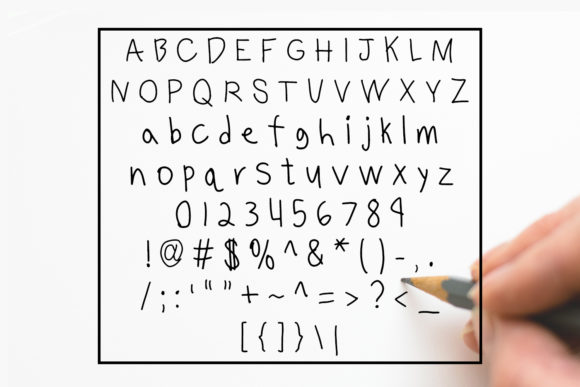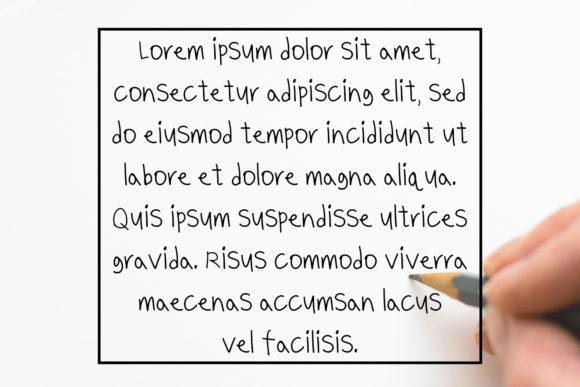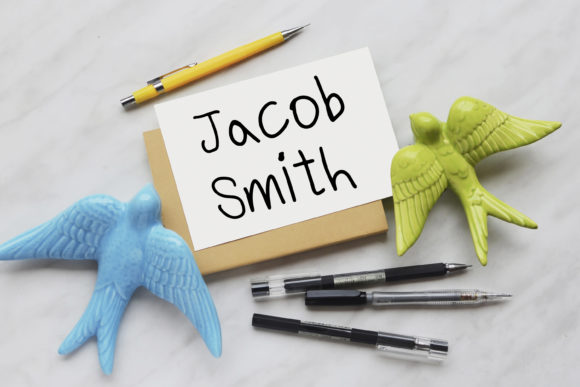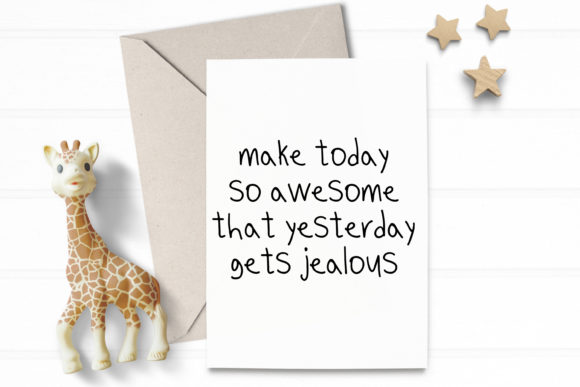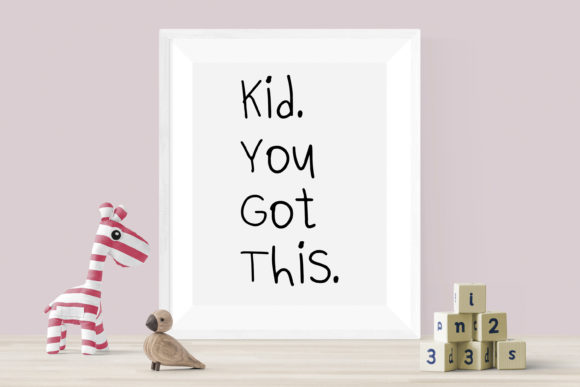
Meet the Next Big Thing in Kid-Friendly Fonts
Do you remember the thrill of scribbling out your first story or drawing a picture for your parents? For many of us, the act of creating is a magical experience that brings us joy and fulfillment. For a 12-year-old boy named Ben, this moment sparked a passion for design that would eventually lead to the creation of the Benjammin’ Font.
The Benjammin’ Font is a charming, handwritten sans-serif font designed specifically for kids. Its playful, carefree style makes it perfect for kids’ projects, from school assignments to creative writing. As a font created by a kid for kids, the Benjammin’ Font offers a unique perspective that’s both authentic and relatable. For designers, it’s a valuable resource that can add a touch of whimsy and personality to any project.
Benjammin’ Font Key Features
- Font Family: Benjammin’ Font is a sans-serif typeface.
- Unique Characteristics: The font features a modern, friendly design with a subtle flair at the ends of strokes, giving it a distinctive feel.
Benjammin’ Font Review
Overall, I’d say Benjammin’ Font is a solid choice for anyone looking for a casual, playful font. Here are the things that stood out to me:
- ✨ The font’s unique charm and character – it’s got a quirky, laid-back vibe that’s perfect for creative projects or branding that wants to stand out.
- ✨ The font’s legibility – despite its playful nature, Benjammin’ Font is still easy to read, even at smaller font sizes.
- ✨ The font’s compatibility – it works well across a range of devices and operating systems, which is a must-have for any modern font.
However, there are a few limitations that I’d like to mention:
- ⚠️ The font’s kerning could be improved – sometimes the letters look a bit too loose or tight, which can affect the overall look of your design.
- ⚠️ The font’s character set is limited – it’s mainly designed for Latin scripts, which may not be suitable for projects that require a wider range of languages.
Overall, I’d give Benjammin’ Font 4 out of 5 stars. It’s a great choice for casual projects, but it may not be the best fit for more formal or complex designs. Still, it’s a fun and versatile font that’s worth considering for your next project.
Getting the Most Out of “Benjammin’ Font”
For optimal results, use “Benjammin’ Font” in conjunction with bold or italic text to create visual interest.
Experiment with different font sizes and colors to create a unique and eye-catching design.
“Benjammin’ Font” is ideal for:
- Music-related designs (e.g., album art, concert posters)
- Food-related designs (e.g., restaurant menus, food blogs)
- Quirky or humorous designs (e.g., memes, social media graphics)
Alternatives to Benjammin’ Font
Copperplate
Copperplate is a beautiful, elegant script font ideal for creating invitations, wedding stationery, and other formal documents. It’s a great choice for designers who want to add a touch of sophistication and refinement to their designs. Compared to Benjammin’ Font, Copperplate has a more classic and traditional feel, while Benjammin’ Font has a more modern and playful vibe.
Carolyna Pro is a modern script font that’s perfect for designers who want to add a touch of luxury and glamour to their designs. It’s ideal for creating high-end branding, advertising, and packaging designs. Compared to Benjammin’ Font, Carolyna Pro has a more refined and sophisticated feel, while Benjammin’ Font has a more casual and approachable vibe.
Great Vibes is a beautiful, elegant script font that’s perfect for designers who want to add a touch of sophistication and elegance to their designs. It’s ideal for creating high-end branding, advertising, and packaging designs. Compared to Benjammin’ Font, Great Vibes has a more classic and traditional feel, while Benjammin’ Font has a more modern and playful vibe.
Playfair Display is a luxurious, elegant serif font that’s perfect for designers who want to add a touch of sophistication and refinement to their designs. It’s ideal for creating high-end branding, advertising, and packaging designs. Compared to Benjammin’ Font, Playfair Display has a more classic and traditional feel, while Benjammin’ Font has a more modern and playful vibe.